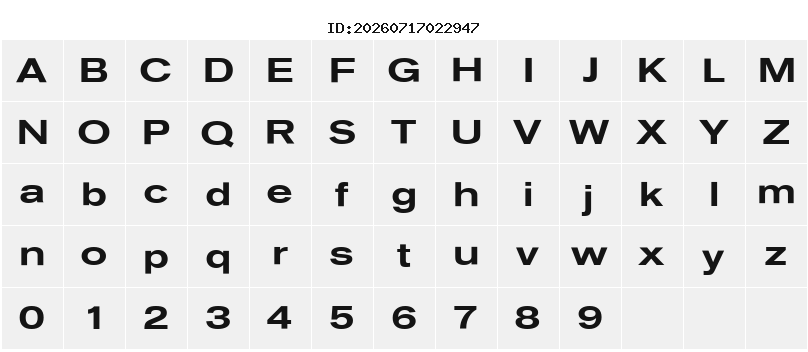
Sh Ad Grotesk MediumExt. Preview
Sh Ad Grotesk MediumExt..ttf is a modern, elegant sans-serif font designed for ultimate readability and visual harmony. Perfect for branding, headlines, web design, and print materials.